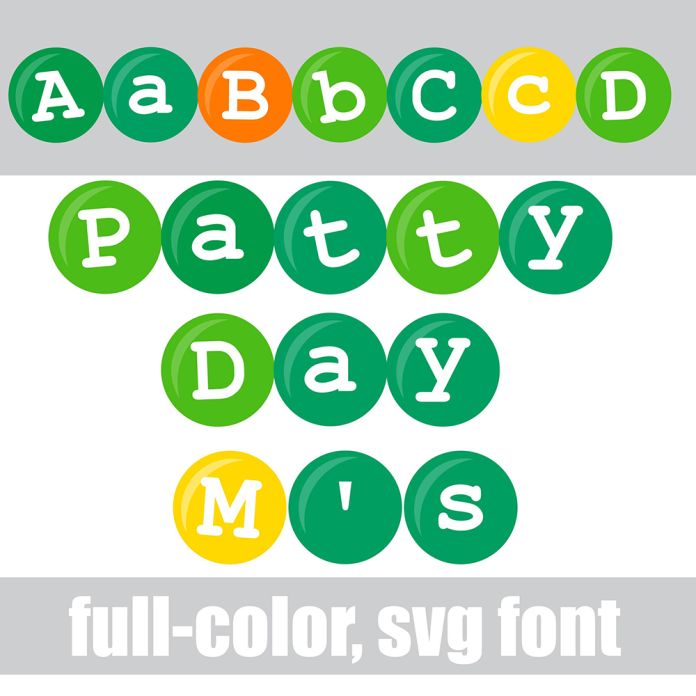
This full-color font looks like candy-coated chocolates in a St. Patrick's Day color palette. There is an alt case with an additional color of each letter. This font works best for titles, displays, posters and more. Please note color fonts will show as black in non compatible programs. This font type is compatible with Silhouette Studio.